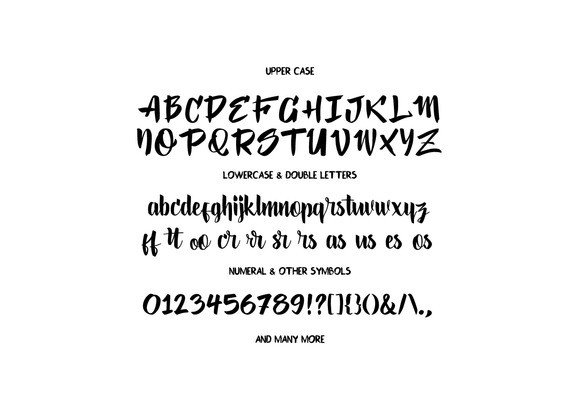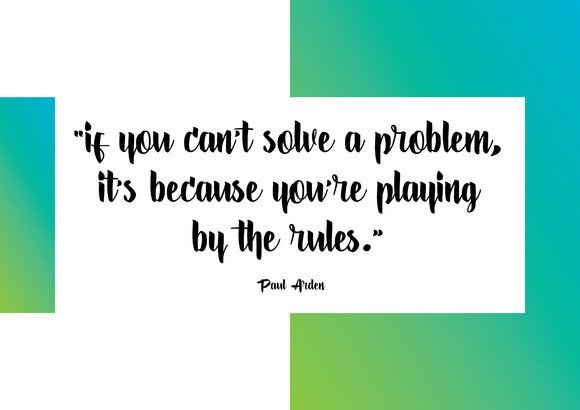
Kosambi Font
About Kosambi Font
Kosambi is a cool and slick font, one that is an ideal candidate for logotype and headlines.  Kosambi is an upright and thick script font, a great combination of robust and romantic design.